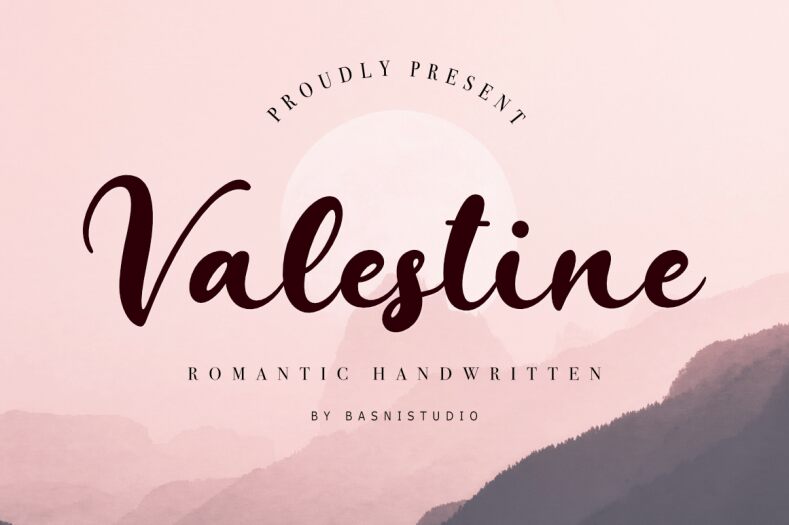
Valestine
Valestine font by Basni.std is an elegant and expressive free handwritten font, characterized by its flowing bold strokes. Modern with a romantic touch, Valestine presents a truly stunning style that will add a gorgeous visual quality to your professional and personal design projects.
Use the graceful typeface for blogs, signatures, photography branding, social media posts, wall art quote designs, invitations, magazines headings or covers, packaging and labels.